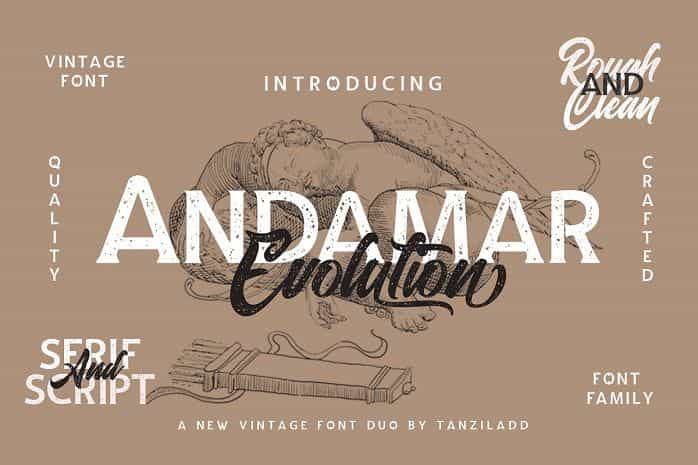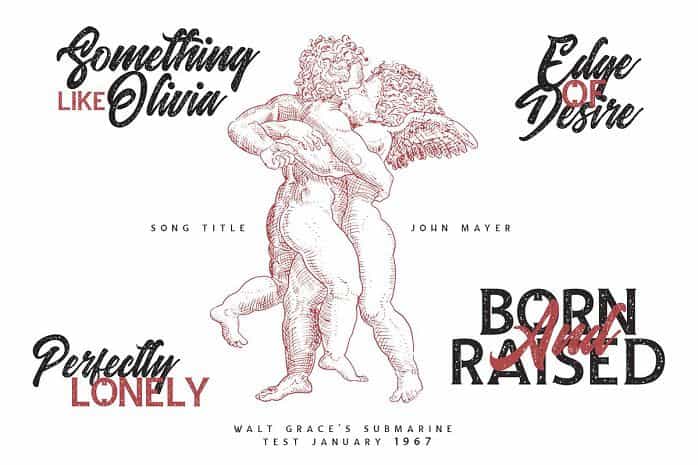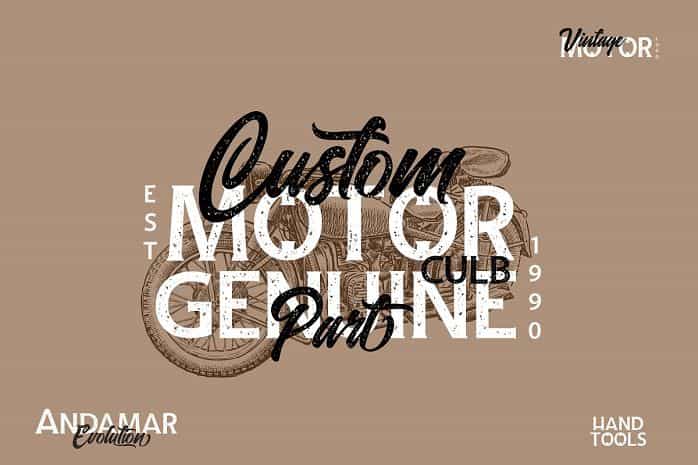
Andamar Font Family
Discover Andamar Font Family, part of the  Brush Display Gothic Decorative collection—a versatile and unique font perfect for adding a personal touch to your projects. Download it for free and enjoy crafting designs with style, from invitations to social media posts. This font is available exclusively for personal use, giving you the freedom to create without limits. Unlock your creativity with Andamar Font Family today!
Introducing Andamar Typeface. It is created by Tanziladd, this font is a premium one, it is sold on creativemarket but you can get it for free today. The Andamar Font Family is a packaging font family that was meant to be cherished, and as we went through the process of design and development, I found it very round and thick which made me like this look – it makes for a vintage font with high level of legibility.